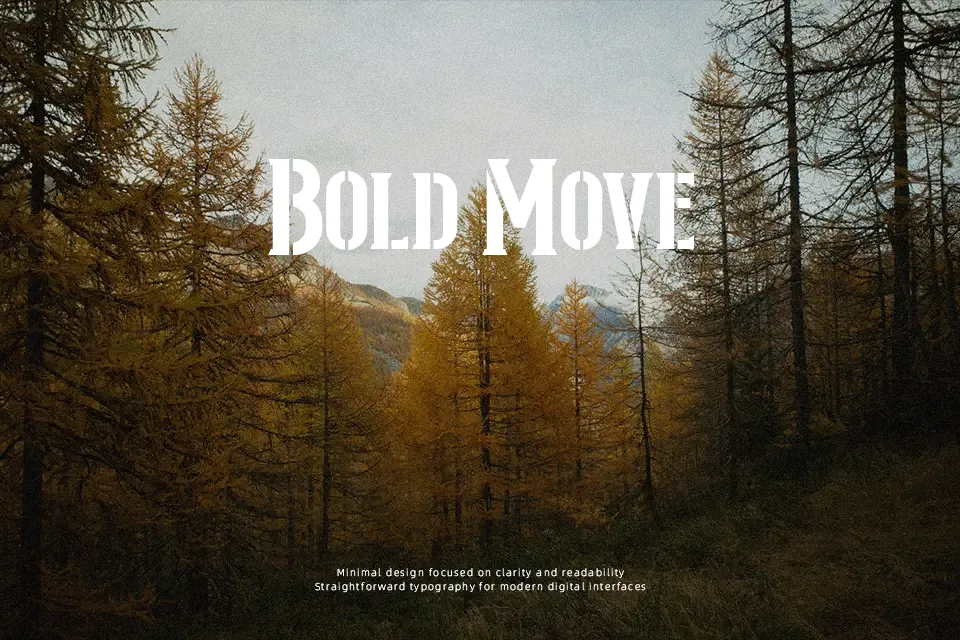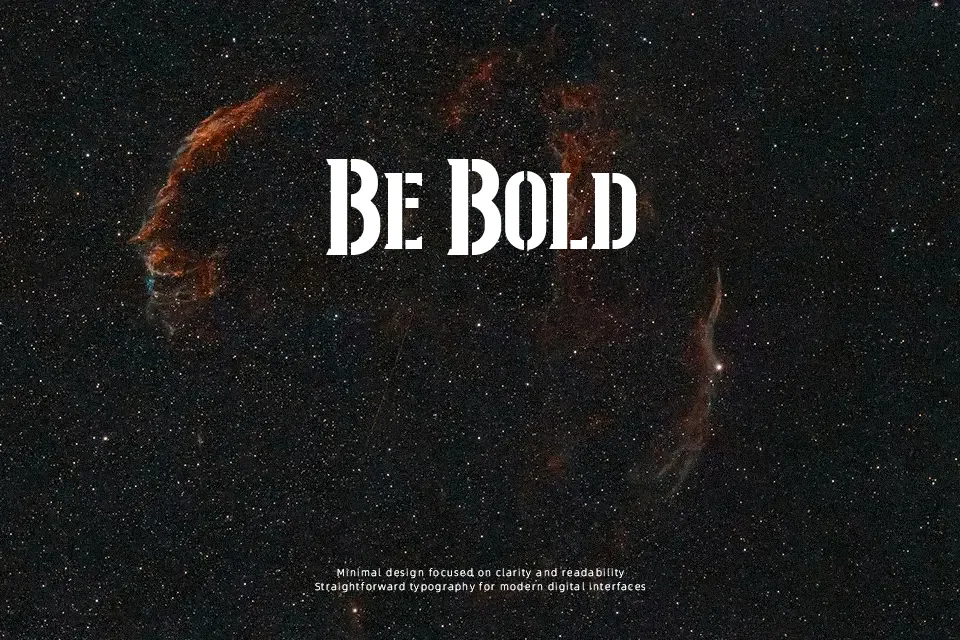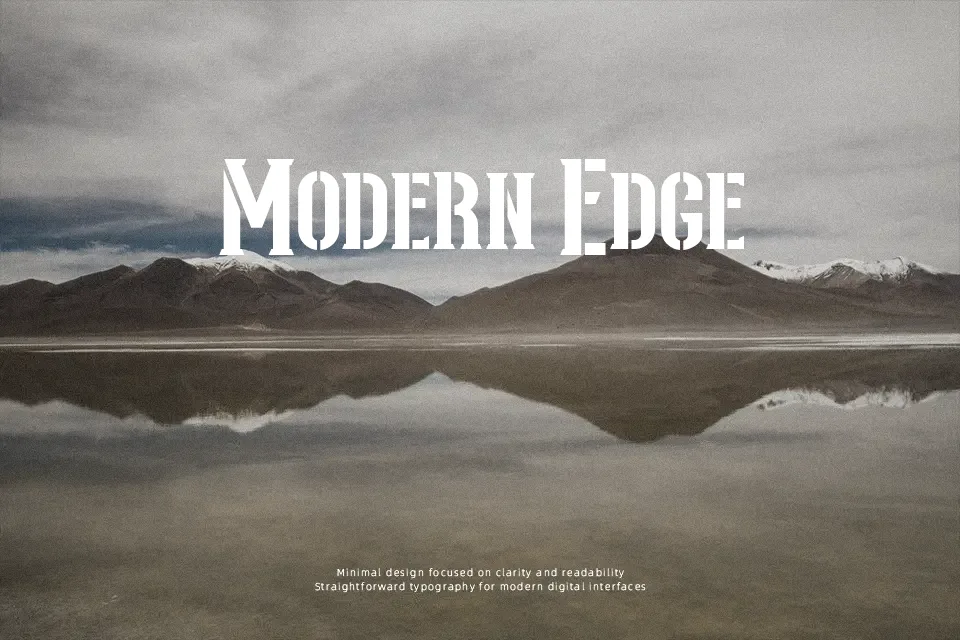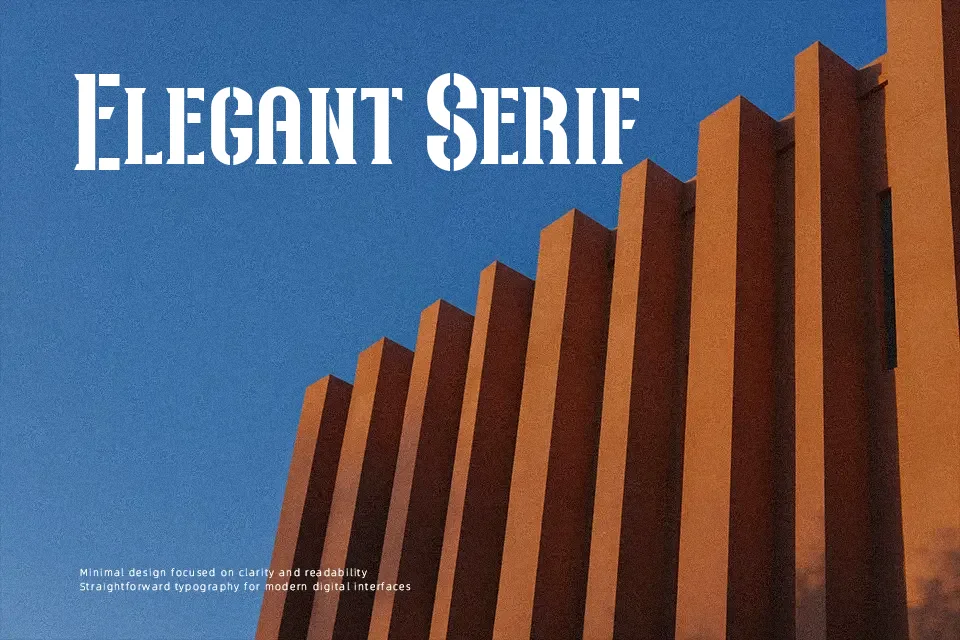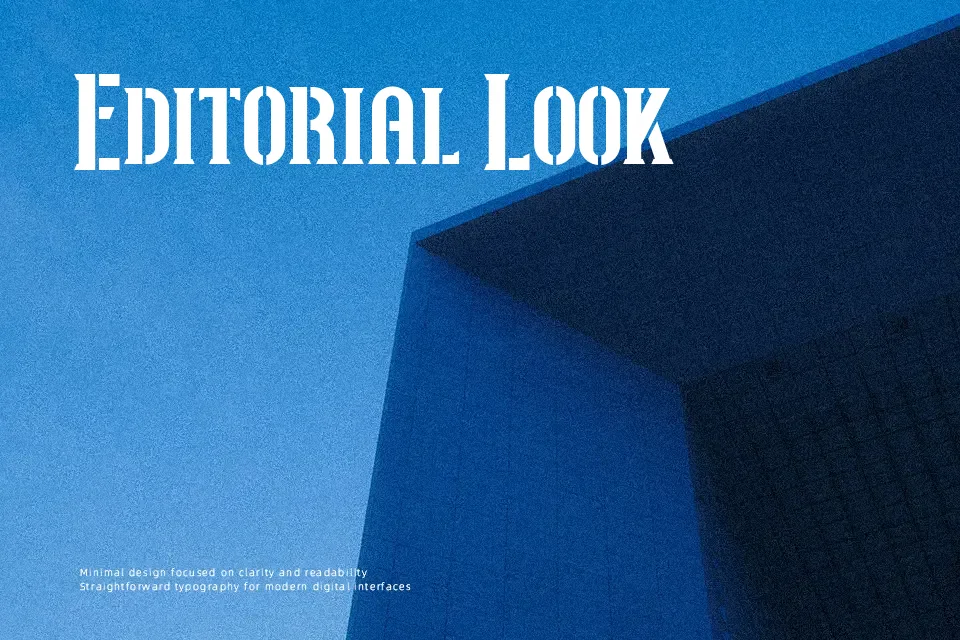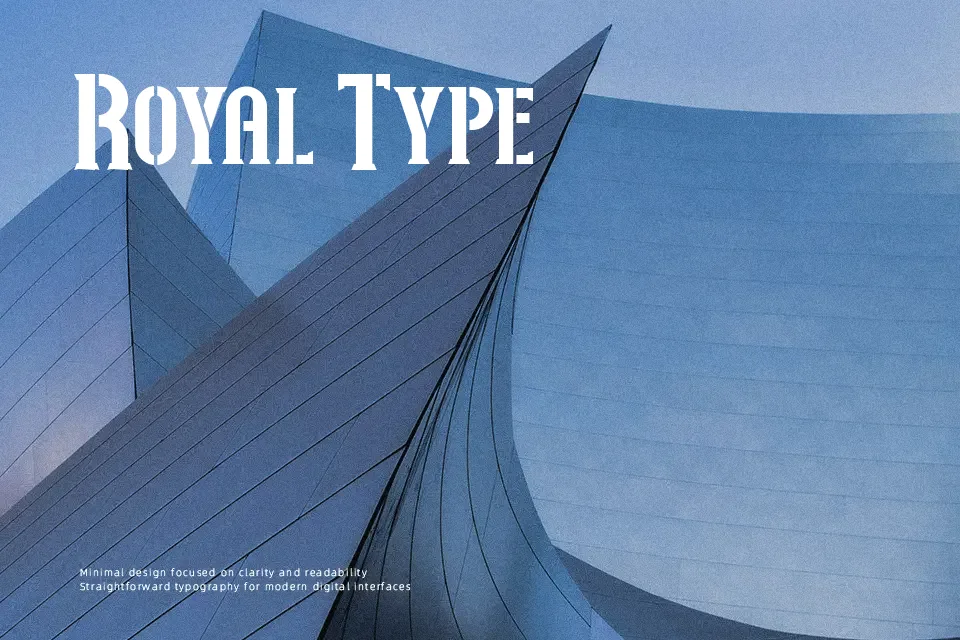
Northash Font
Designed by Arterfak Project
Northash Font works best as a compact display face with sturdy strokes, cut-out stencil gaps, and condensed proportions. Its uppercase letters create a firm, uniform rhythm, while the narrow width helps short words fit comfortably into badges, labels, and poster compositions. The segmented construction gives headlines a weathered, utilitarian appearance without relying on fine decorative details. Spacing remains clear at larger sizes, particularly when used for brief lines with generous surrounding space. It is a practical choice for vintage signage-inspired graphics and bold packaging text. The stencil breaks become less distinct in small sizes, so the typeface is not well suited to dense copy or small captions.
Best For: military-style posters,vintage product labels,apparel graphics,packaging headlines
Perfect for branding, headline, and packaging, with a bold and condensed style.